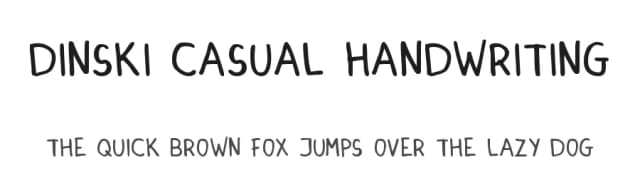
About Dinski Casual Condensed Font
Dinski Casual Condensed is a friendly script-handwritten font from designer stnclknkl that brings a relaxed, personal touch to any project requiring authentic warmth. The condensed width makes it efficient for smaller spaces without sacrificing its inviting, organic character. With 89 glyphs covering over 104 languages built on Latin script, this font addresses a global audience while maintaining its distinctly casual and approachable personality throughout all supported scripts.
This font excels in applications where genuine warmth and authenticity strengthen the overall message. Create inviting Etsy shop headers that feel handcrafted, design Instagram story text overlays with natural charm, or develop custom greeting card suites with a personal touch. Wedding invitation layouts, scrapbooking projects, and small-batch product labels all gain character and energy from its conversational, friendly presence. The font is available as a free download from this page, with licence terms shown there governing how you may use it.
For maximum effect, pair Dinski Casual Condensed with a clean geometric sans-serif to create striking contrast between the casual script and modern structure. Layer it over photography in social media graphics to draw the viewer's attention with authentic character and depth. Its balanced blend of personality and practical spacing makes it an excellent choice for designers seeking genuine handwritten warmth without unnecessary complexity.
Dinski Casual Condensed Font is a script font that shines as a display or heading face. Pair it with a clean sans-serif or serif font for body text β the contrast creates a clear hierarchy while the two styles stay balanced and easy to read.
Dinski Casual Condensed Font
by stnclknkl